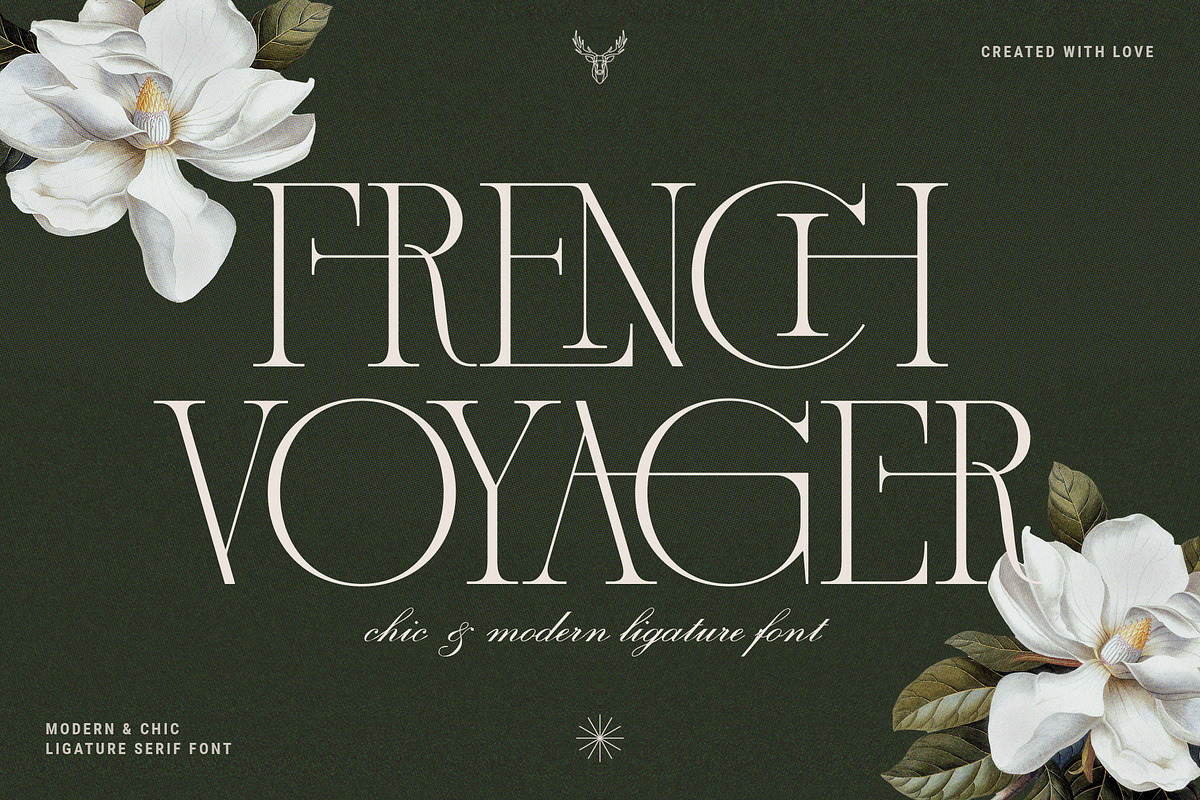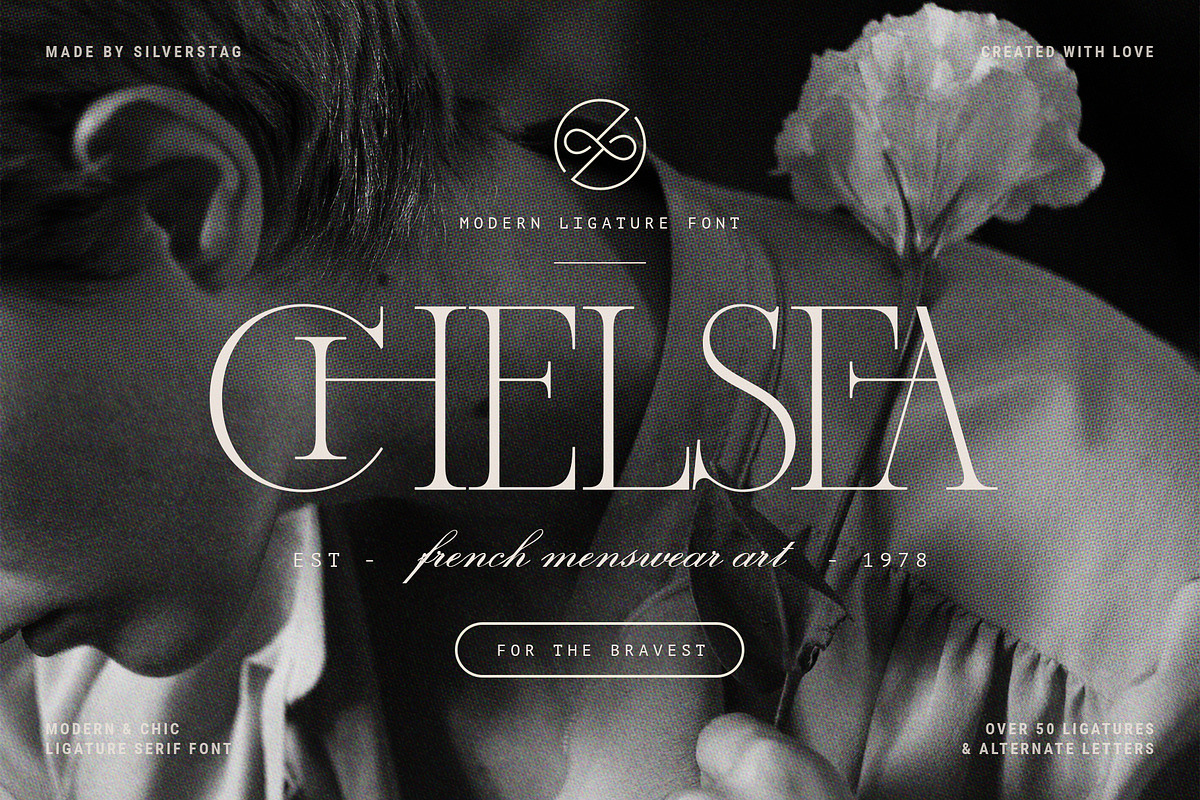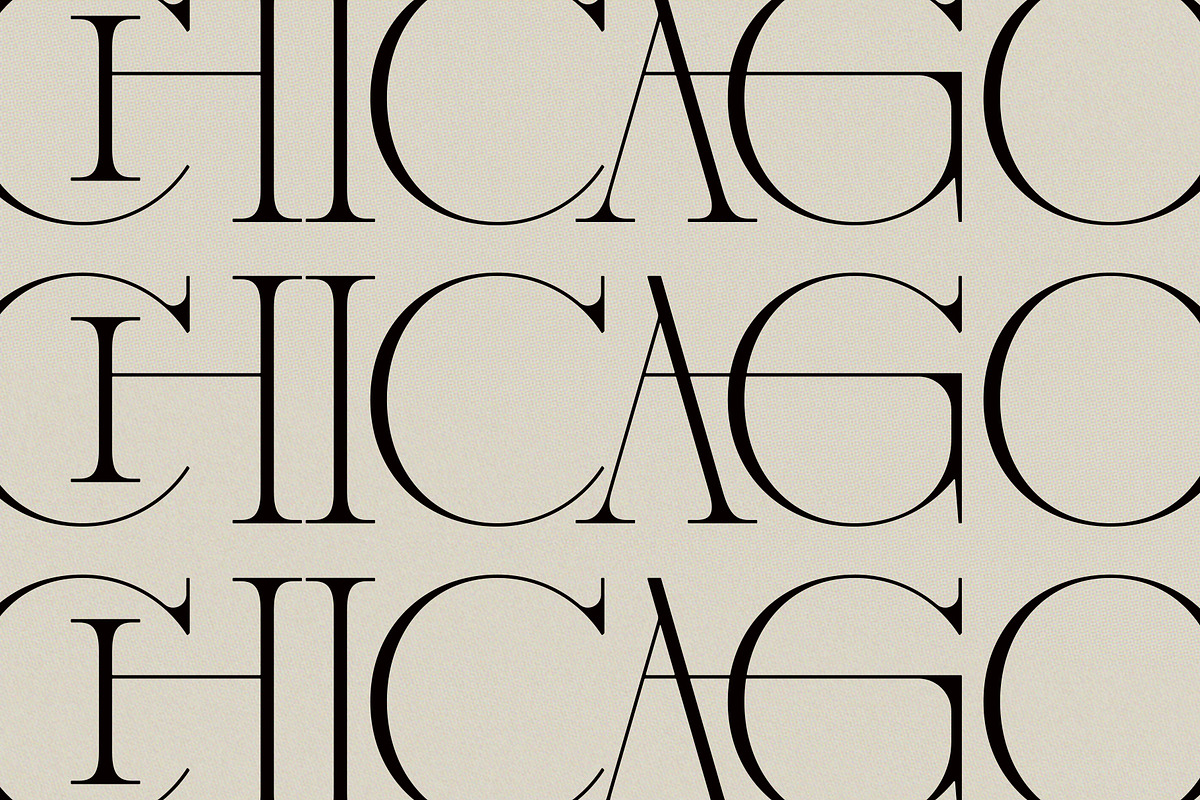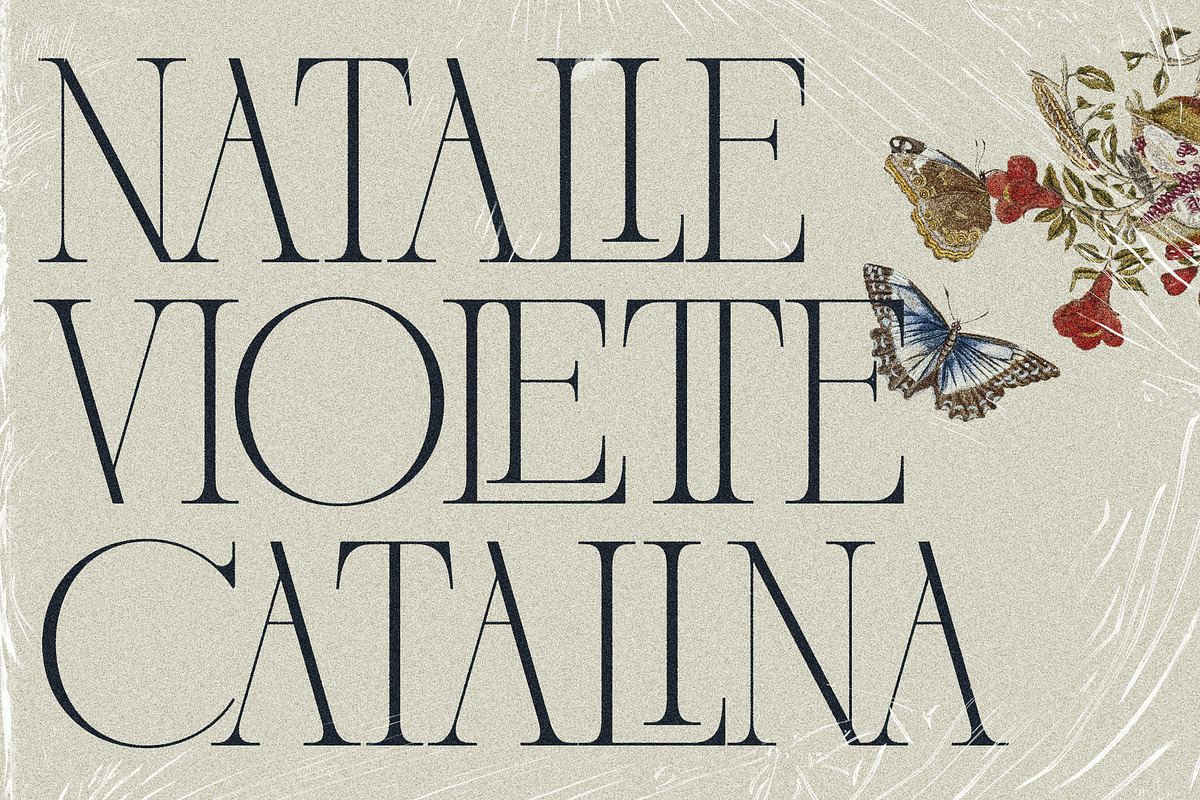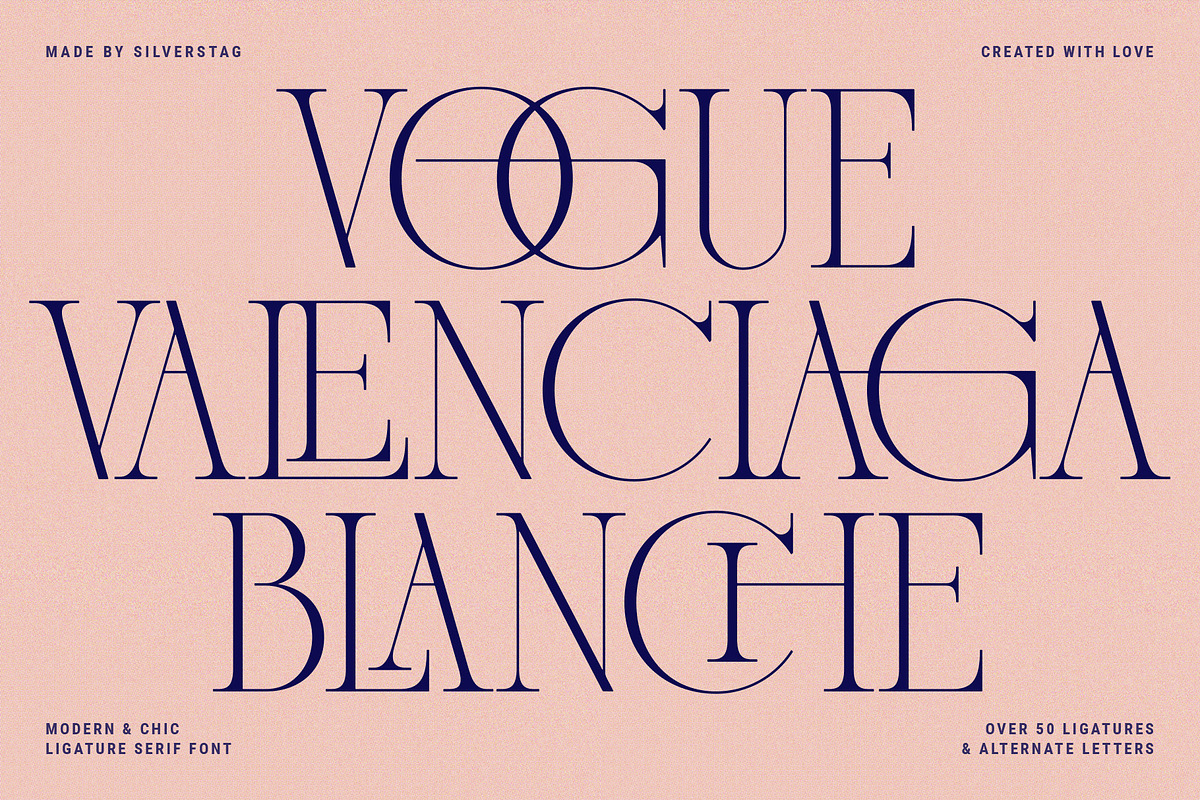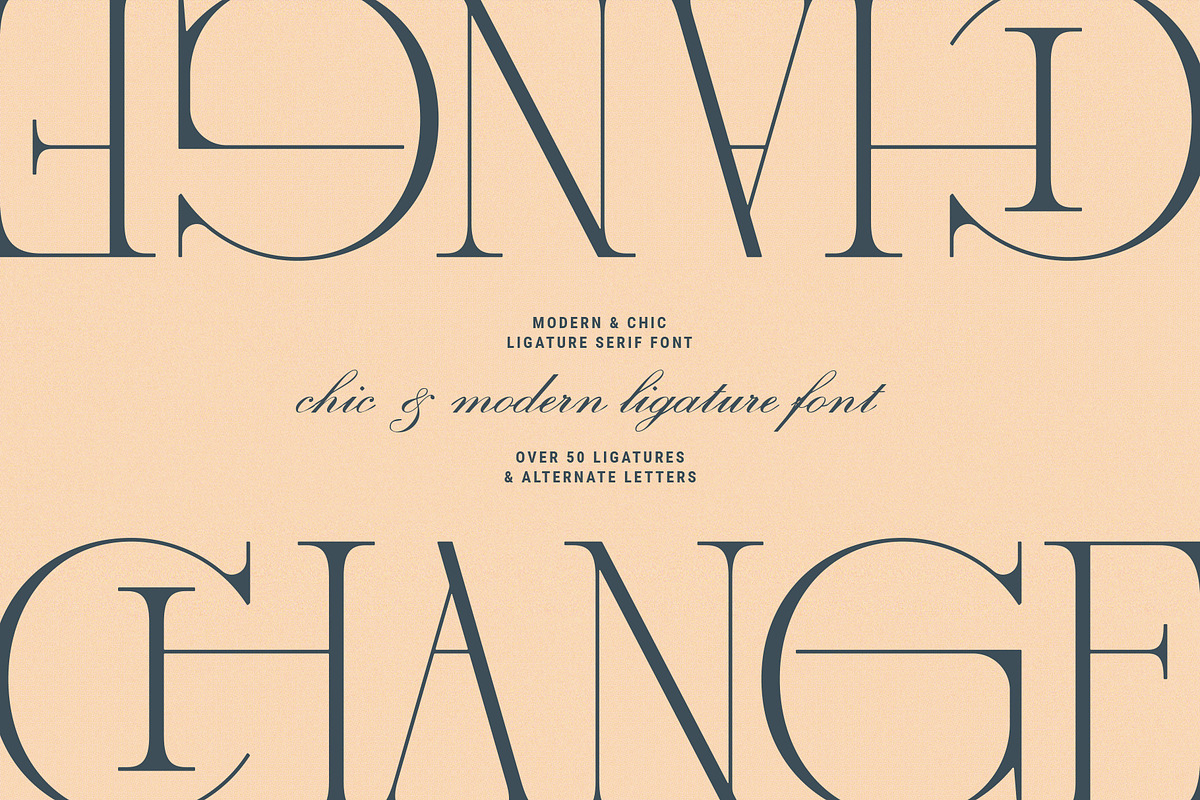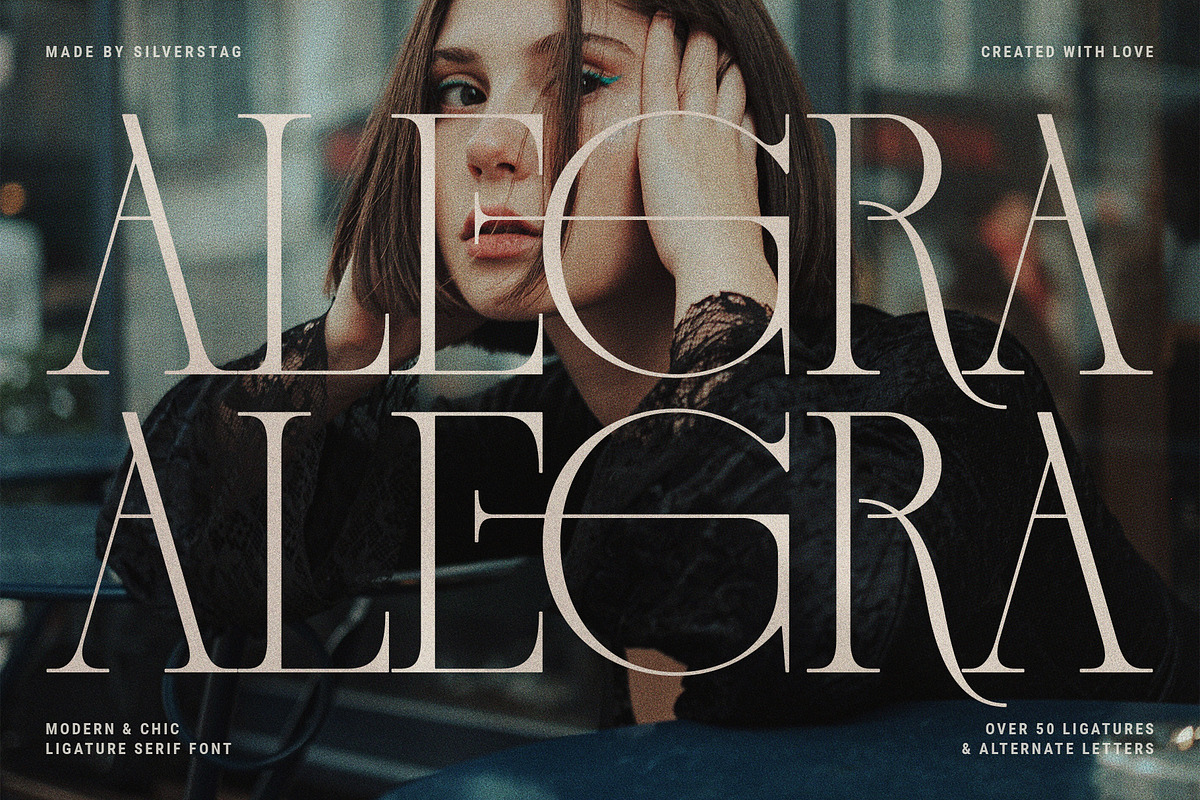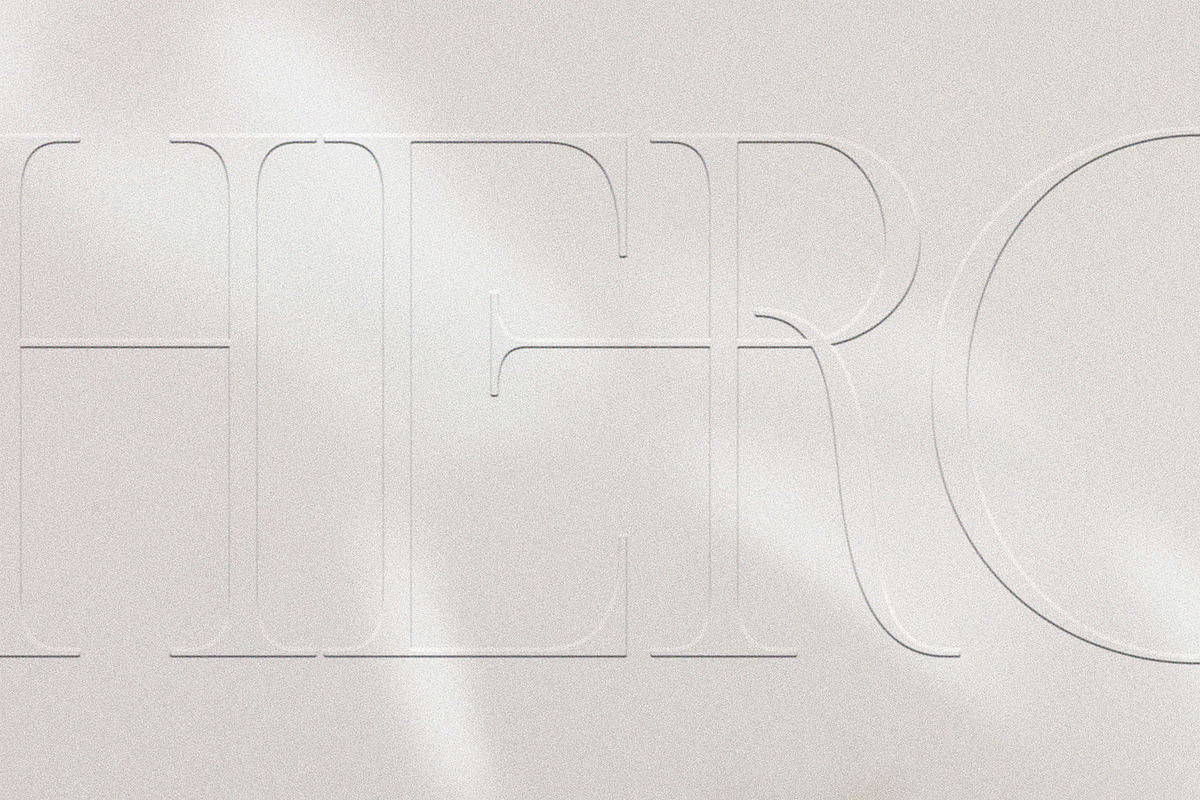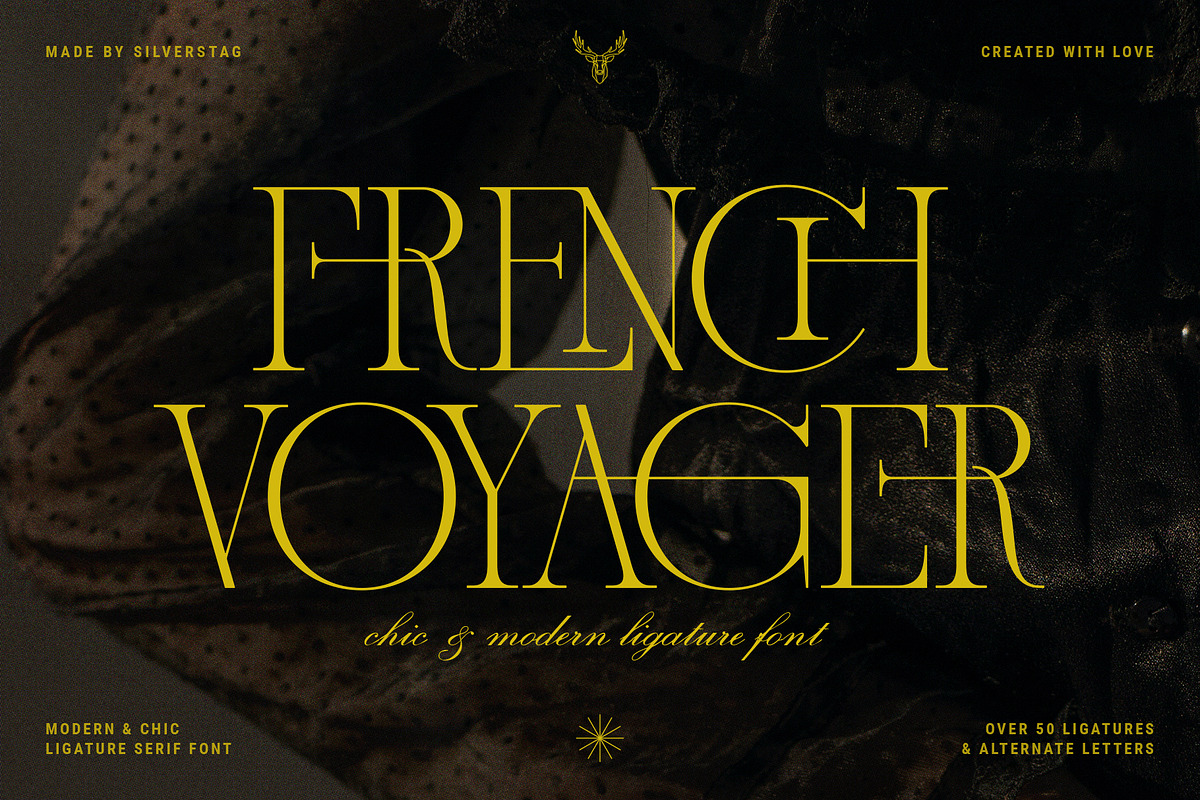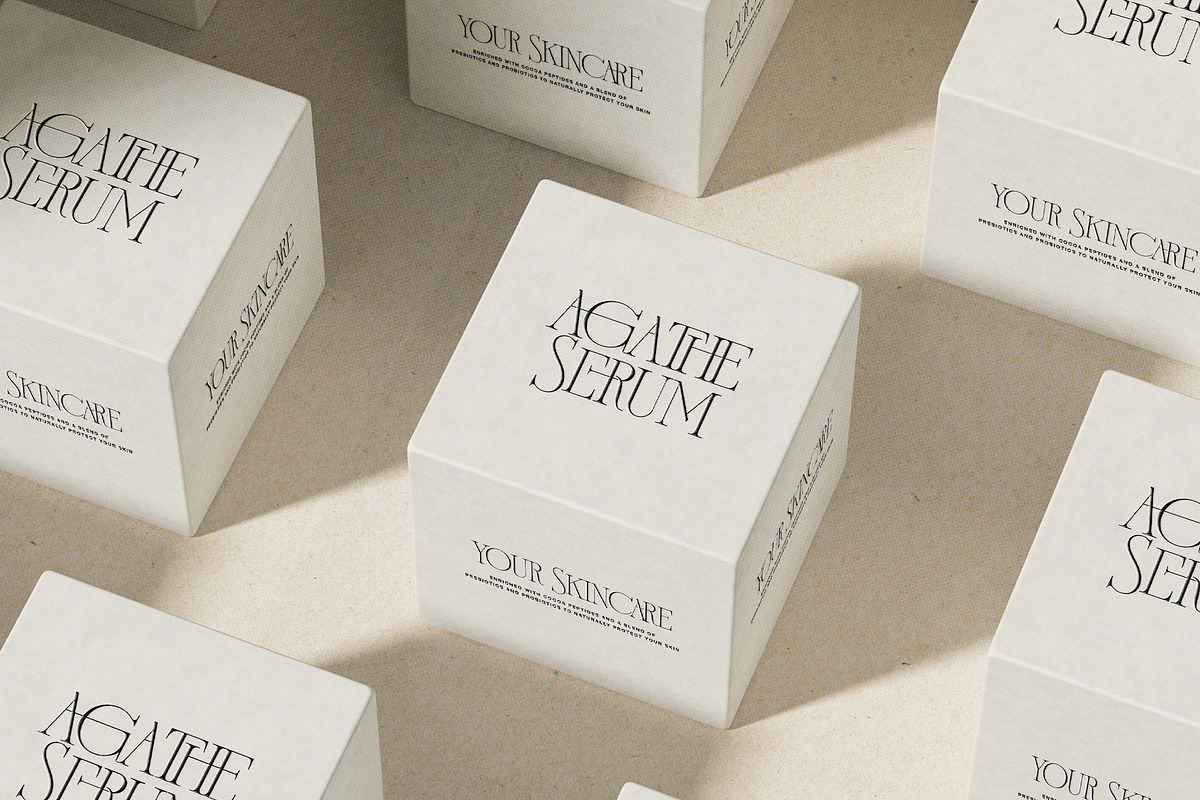
French Voyager - Chic Ligature Serif
Vintage & chic, nostalgic & super elegant, modern & art deco! French Voyager is a brand new nostalgic serif font revival that brings all these and even more. It is perfect for logos & quotes, posters & branding, website headlines, newsletters & more! It includes over 60 ligatures and some chic alternate letters, so you can combine it to get the look you want!
The font also includes full language support, punctuation, numerals and detailed instructions how to use ligatures in most of the apps on your computer, as well as in Canva.
- Over 60 ligatures and alternate letters
- Language Support